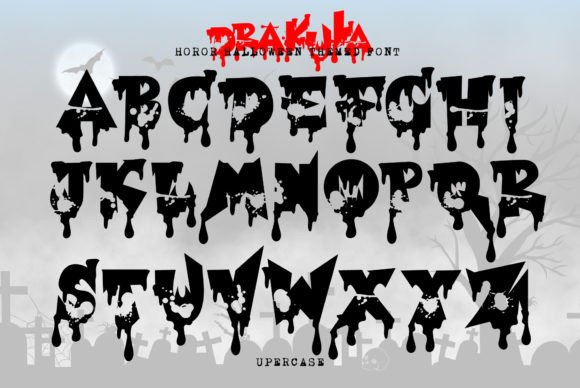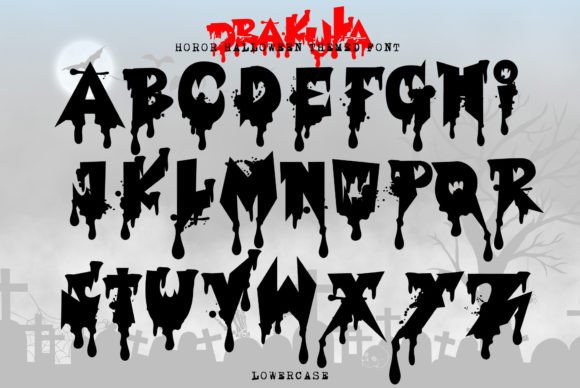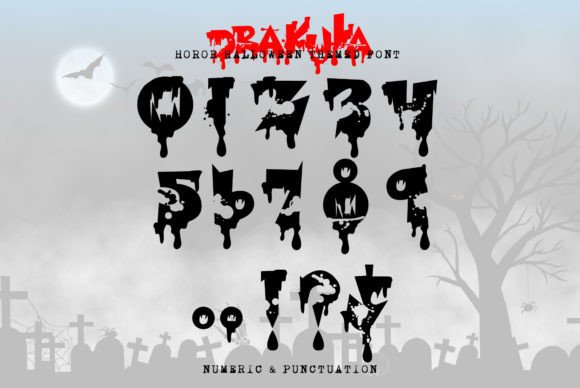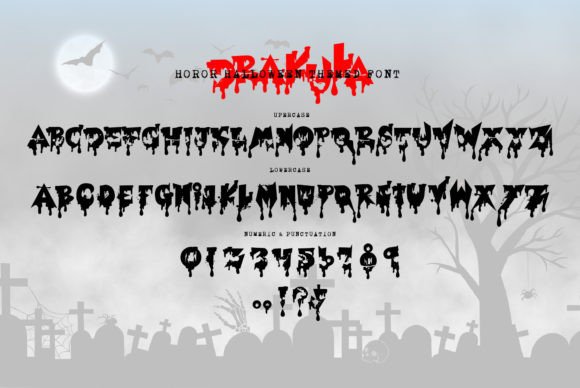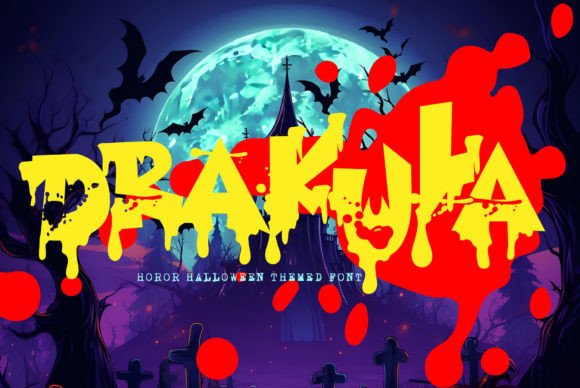
Drakula Font: The Spookiest Addition to Your Halloween Designs
As the spookiest time of the year approaches, designers and crafters are on the lookout for the perfect font to add a dramatic touch to their October projects. Look no further than the Drakula Font, a spooky and fun Halloween decorative font that’s sure to cast a spell on your audience.
What is Drakula Font?
Drakula Font is a specially designed font for Halloween-themed projects. Its unique and quirky style is perfect for creating eye-catching designs, from invitations and posters to social media graphics and crafts. The font’s spooky charm is sure to evoke the spirit of Halloween, adding a touch of drama and excitement to any project.
Key Features of Drakula Font
- Spooky and Fun: The font’s unique design is both spooky and fun, making it perfect for Halloween-themed projects. Its quirky style is sure to add a touch of personality to your designs.
- Dramatic Touch: Drakula Font is designed to add a dramatic touch to your projects. Its bold and eye-catching style is sure to grab attention and leave a lasting impression.
Why Use Drakula Font?
There are many reasons why Drakula Font is the perfect choice for your Halloween projects. Here are just a few:
- Unique Style: Drakula Font has a unique and quirky style that’s sure to stand out from the crowd. Its spooky charm is perfect for Halloween-themed projects.
- Versatility: Drakula Font can be used for a wide range of projects, from invitations and posters to social media graphics and crafts.
Drakula Font is the perfect addition to any Halloween-themed project. Its spooky and fun design, combined with its ease of use and versatility, make it a must-have font for designers and crafters. Whether you’re creating invitations, posters, social media graphics, or crafts, Drakula Font is sure to add a dramatic touch to your designs. So why wait? Download Drakula Font today and get ready to cast a spell on your audience!